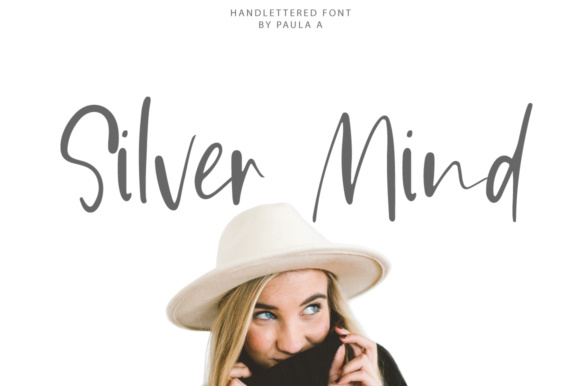
Unleash your creativity with Silver Mind, a font that captures elegance and grace beyond compare. The delicate strokes, reminiscent of a handwritten letter, will create designs that tug at the heartstrings. Experience the joy of expressing your ideas in a font that evokes a soft breeze and blooming flowers.
Let Silver Mind transport you to a realm of enchantment, where every word you type carries the whispers of a heartfelt story. The carefully crafted curves and swashes of each character embrace your words, enhancing their meaning with a touch of gentle sophistication. Unleash your creativity and watch as Silver Mind transforms your designs into works of art.
With Silver Mind, you'll create designs that linger in the memory, stirring emotions and leaving an indelible mark. It's the perfect choice for crafting logos, wedding invitations, social media posts, greeting cards, and any project that demands a dash of tenderness and charm.
Embrace the power of Silver Mind and witness the magic unfold as your designs come to life. Let your imagination dance as you explore the endless possibilities of this extraordinary font. Elevate your designs, enchant your audience, and add a touch of Silver Mind's magic to your creations today!